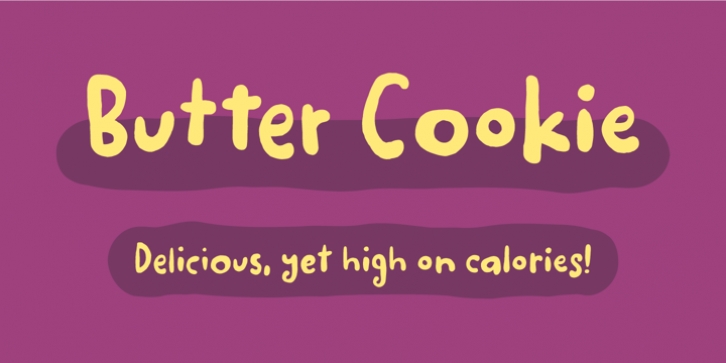
Butter Cookie was designed by Jakob Fischer and published by Bogstav. Butter Cookie contains 2 styles and family package options. The font is currently #38 in Hot New Fonts.
Did you ever taste a Butter Cookie that you didn't like? I bet the answer is no. It hasn't happened to me yet.
Actually I did have a butter cookie and a cup of coffee while finishing this font - and it was great! :)
The font, Butter Cookie, is a playful and whimsical comic font. Like magic, the letters change as you type - but that is really not magic, but the contextual alternates...they automatically cycles through the 3 different versions as you type!